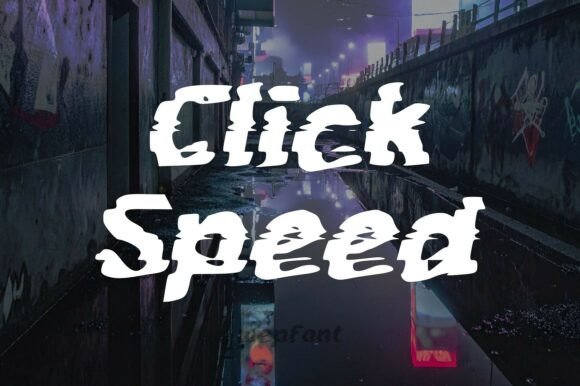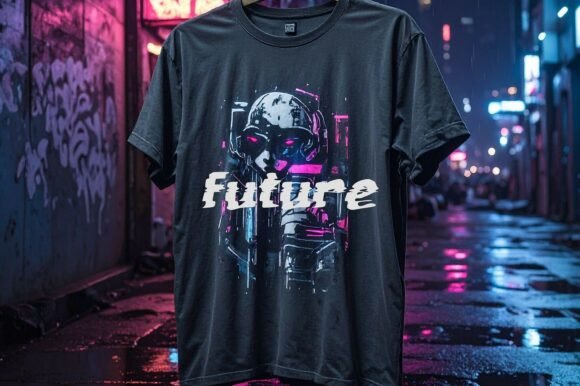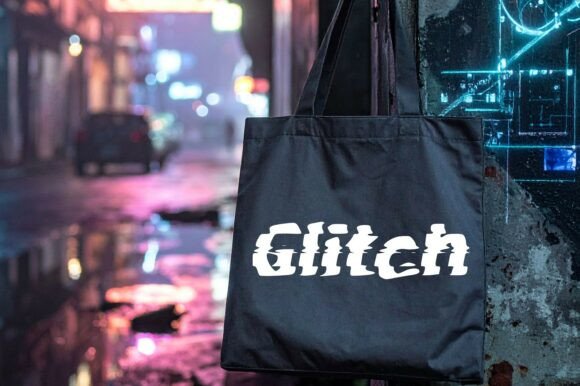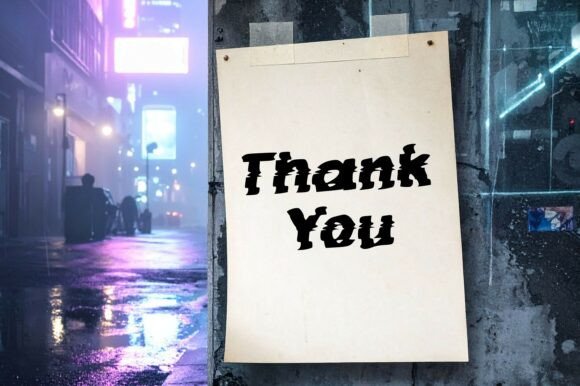
Unleash the Power of Click Speed Font: Elevate Your Designs with a Cyberpunk Twist
Welcome to Click Speed, the thrilling decorative display font that masterfully blends cyberpunk spirit with the dynamism of the digital world. This font sets itself apart with its sensational glitch effect, delicately crafted to evoke an aura of high-tech distortion, all while exhibiting a bold, compact structure.
The Essence of Click Speed
Click Speed captures the essence of a sophisticated, fragmented universe with its extraordinary urgency and speed. Its daring geometric construction synced with the digital glitch creates an unparalleled, kinetic atmosphere, making it perfect for projects looking for a modern, tech-savvy undertone.
Perfect for Futuristic and Sci-Fi Projects
Whether you’re working on a futuristic narrative, a sci-fi plot, a dystopian tale, or cyberpunk themes, Click Speed adds genuineness and depth to your words with great ease. This font is designed to bring your story to life, transporting your audience to a world of high-tech innovation and digital revolution.
What to Expect from Click Speed
The package includes a complete alphabet set featuring unique uppercase and lowercase letters, each designed to maintain its glitch-induced quick elegance. It also offers all standard numbers (0-9), essential punctuation marks, and a range of special characters to ensure versatility and flexibility in your designs.
Key Features of Click Speed Font
- Glitch Effect: A sensational glitch effect that evokes an aura of high-tech distortion.
- Geometric Construction: A daring geometric construction that creates a kinetic atmosphere.
- Complete Alphabet Set: A complete alphabet set featuring unique uppercase and lowercase letters.
- Numbers and Punctuation: All standard numbers (0-9) and essential punctuation marks.
- Special Characters: A range of special characters to ensure versatility and flexibility.
Why Choose Click Speed?
Click Speed is the perfect choice for designers and crafters looking to add a touch of cyberpunk flair to their projects. Its unique glitch effect and bold, compact structure make it ideal for creating eye-catching headlines, titles, and captions. With Click Speed, you can:
- Elevate Your Designs: Add a modern, tech-savvy undertone to your projects.
- Stand Out: Create unique and memorable designs that capture the essence of a futuristic world.
Tips for Using Click Speed